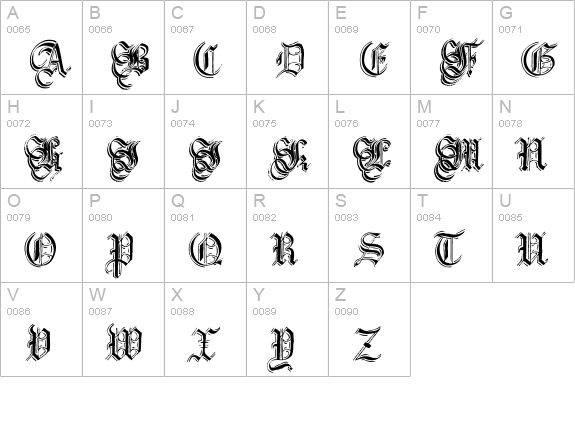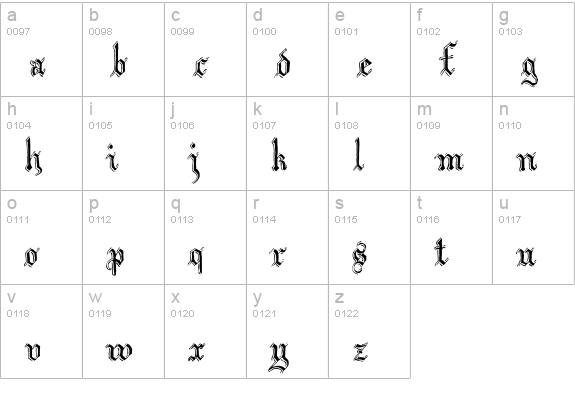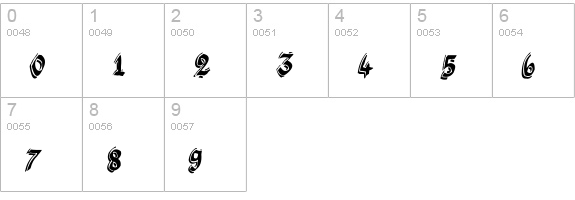
Argor Flahm Scaqh Font Details
Argor Flahm Scaqh font is a stunning display typeface that exudes elegance and sophistication. Its intricate details and unique design make it perfect for adding a touch of luxury to any project. This font's sharp serifs and clean lines give it a timeless appeal that is sure to make a statement. What sets Argor Flahm Scaqh font apart is not just its beauty, but also its versatility. Whether you're working on a branding project, a wedding invitation, or a magazine spread, this font will elevate your design to the next level. The best part? Argor Flahm Scaqh font is available for free download at FontsMarket.com. So go ahead, add this exquisite font to your collection and let your creativity shine!